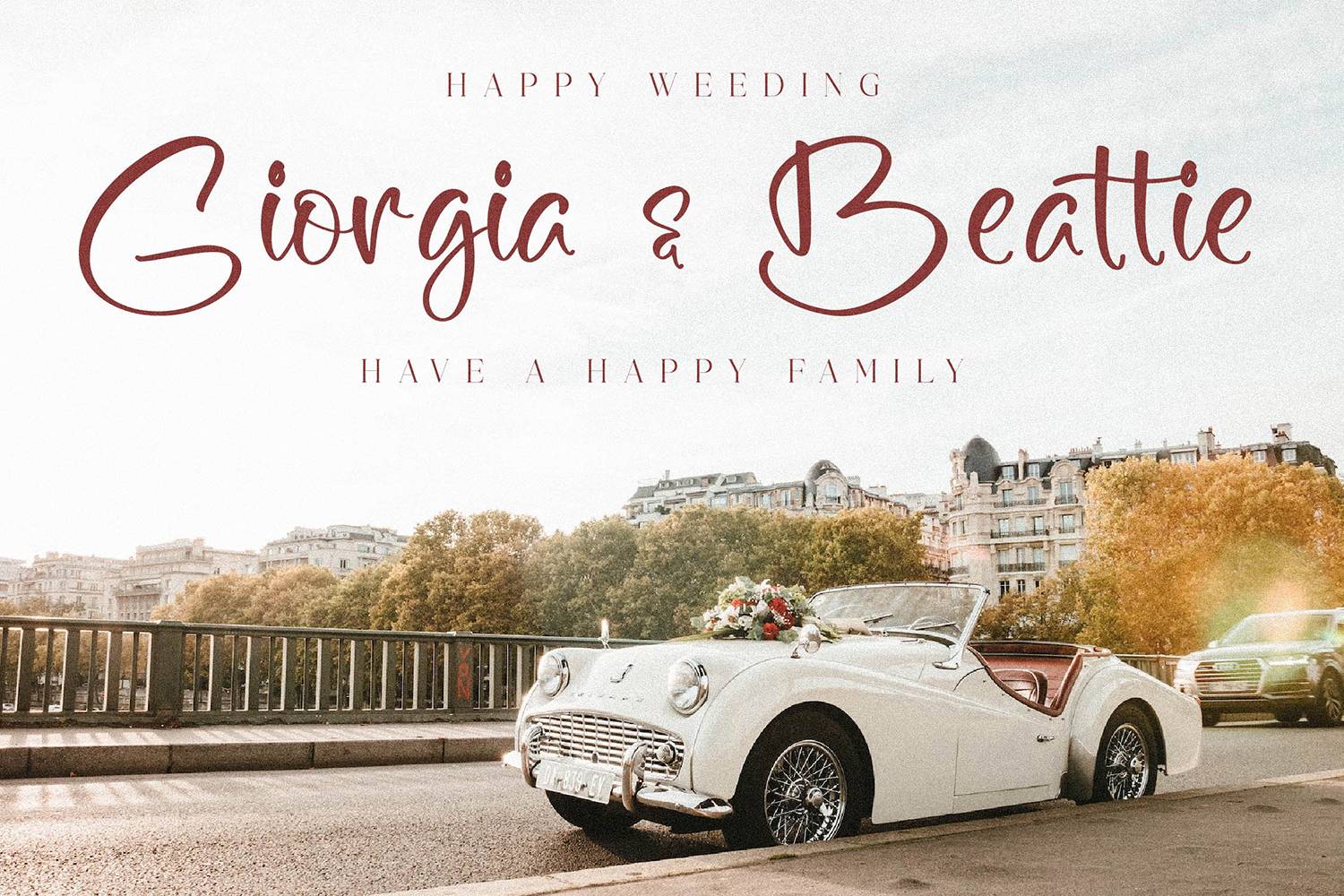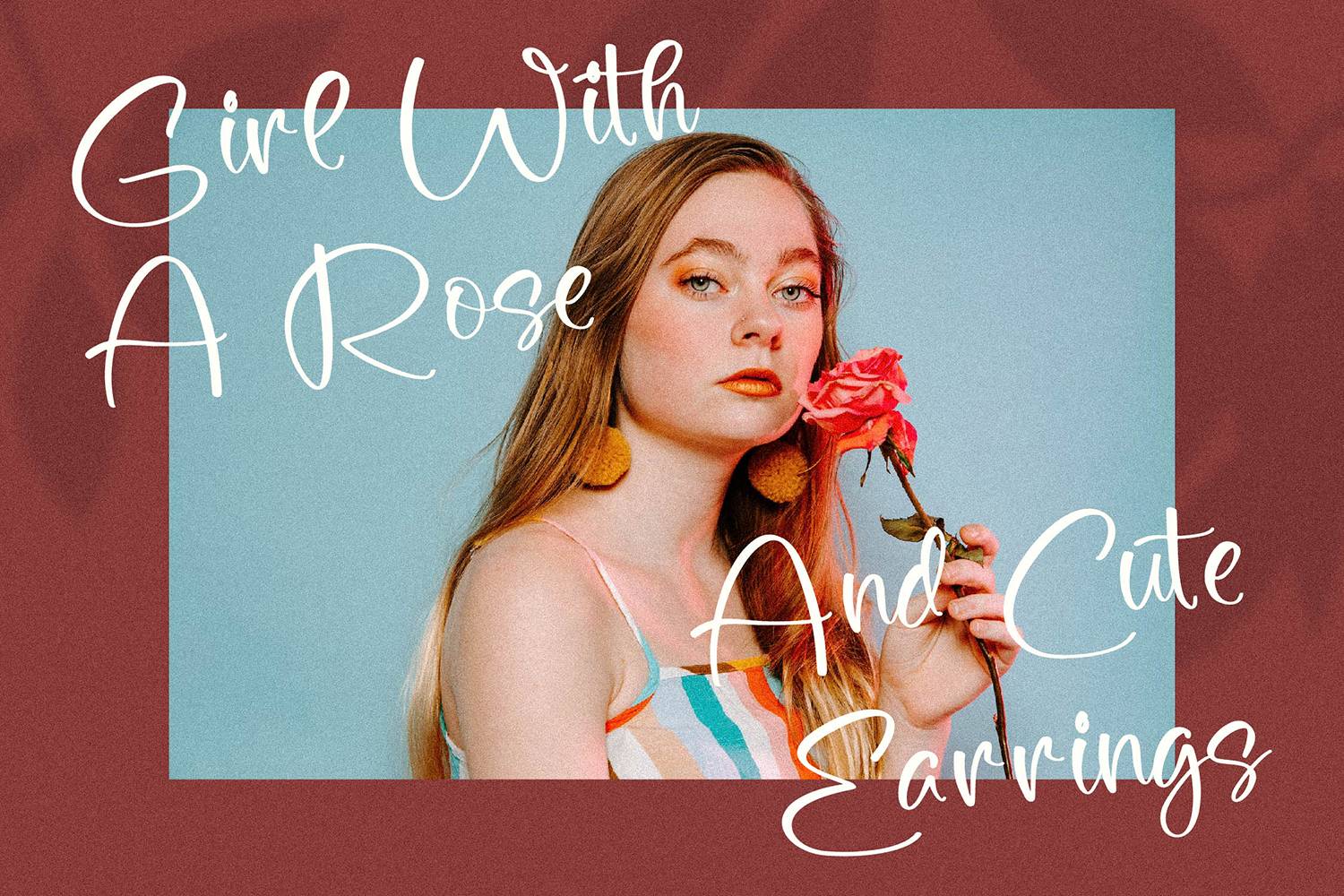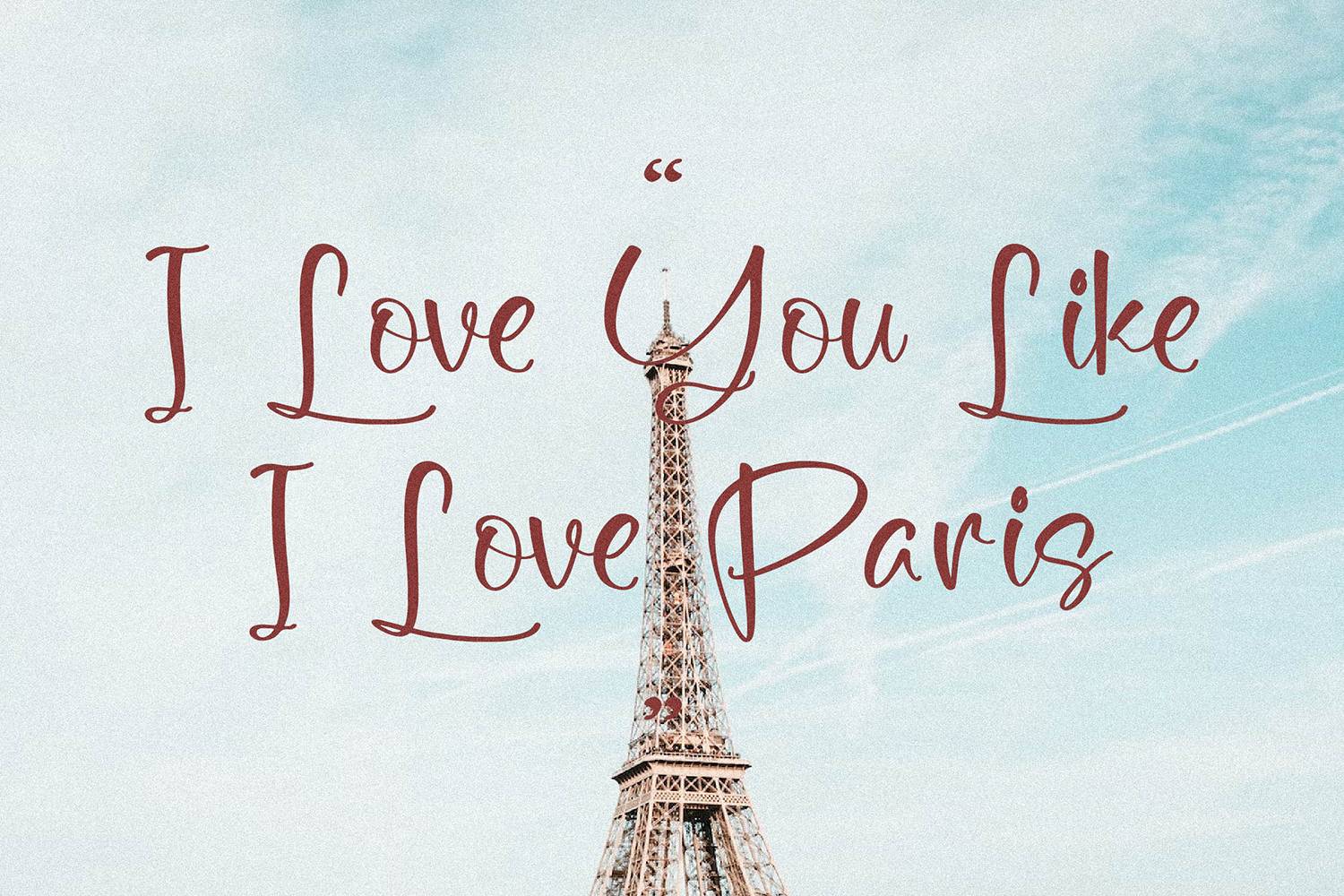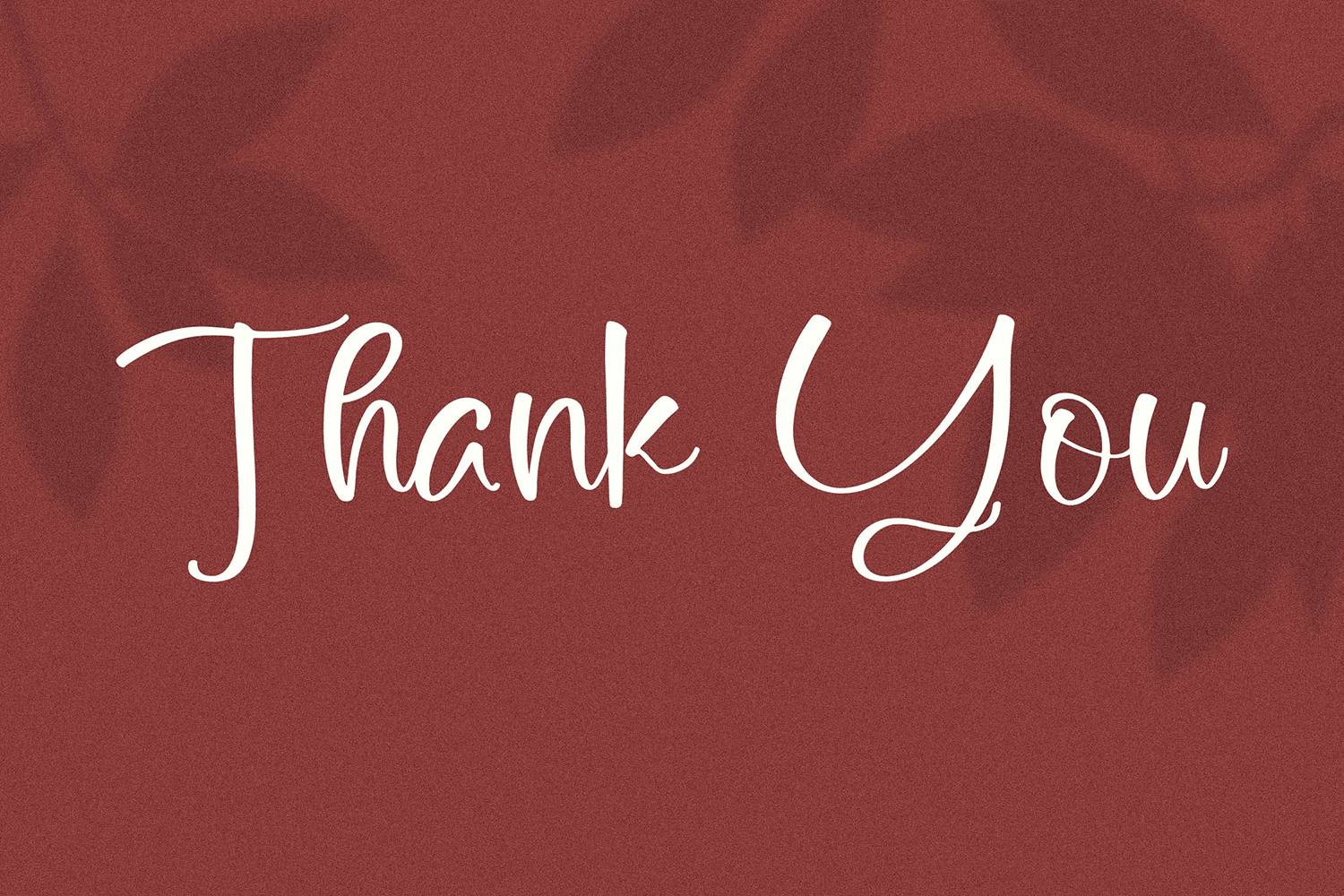
Creedflag is a playful and elegant handwritten script font with a light weight and a casual, flowing style. It features lively, slightly irregular letterforms with a mix of tall, looping strokes and delicate curves, giving it a natural, personal touch perfect for invitations, branding, and creative projects seeking a friendly and approachable vibe. This font works well in contexts that benefit from a warm, handcrafted feel, such as greeting cards, logos, and decorative headlines.
Creedflag Font
About Creedflag Font